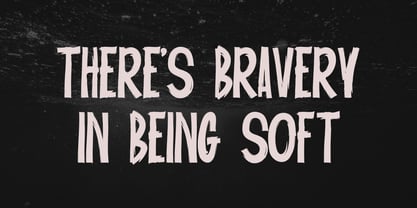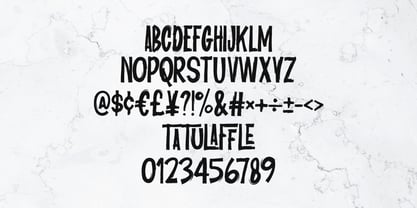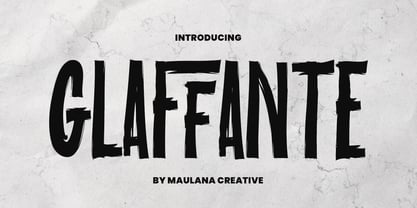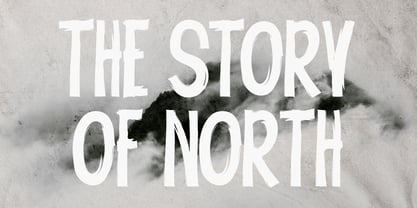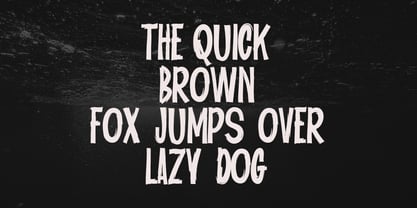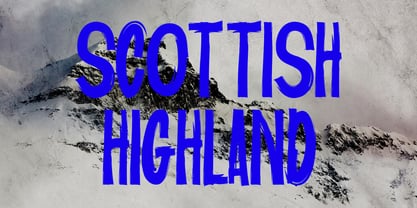
MC Glaffante
by Maulana Creative
The MC Glaffante Font Family was designed by Gilang Maulana and published by Maulana Creative. MC Glaffante contains 1 styles. More about this family
Introducing Glaffante Brush Sans Display Font a bold and stylish typeface that blends the clean lines of sans serif with the raw energy of hand painted brush strokes. Designed to command attention, this font is perfect for modern branding, powerful headlines, product, social media, and more. Its unique balance of creativity and professionalism makes it versatile for both digital. Whether you’re creating edgy urban designs or sleek modern visuals, Glaffante will add impact, authenticity, and character to your projects. A must have font for designers who want their work to stand out in the global creative.
Designers: Gilang Maulana
Foundry: Maulana Creative